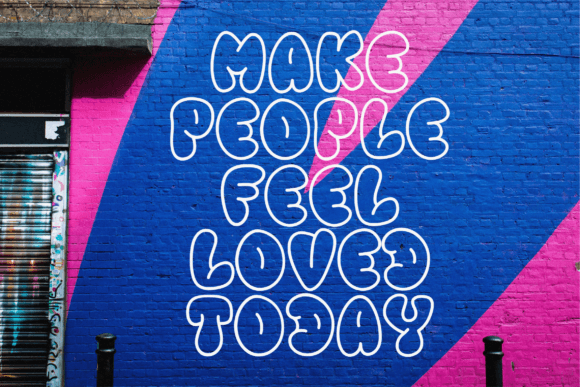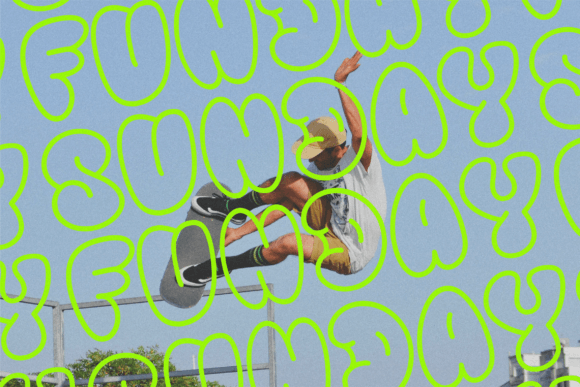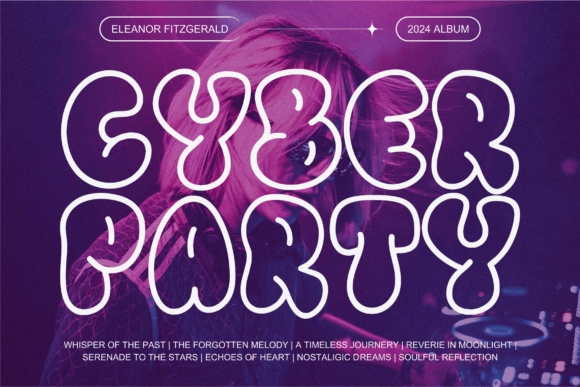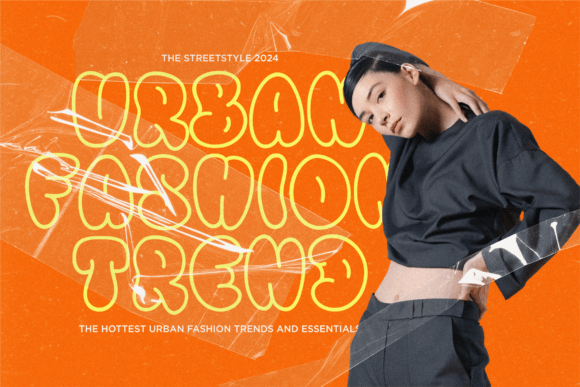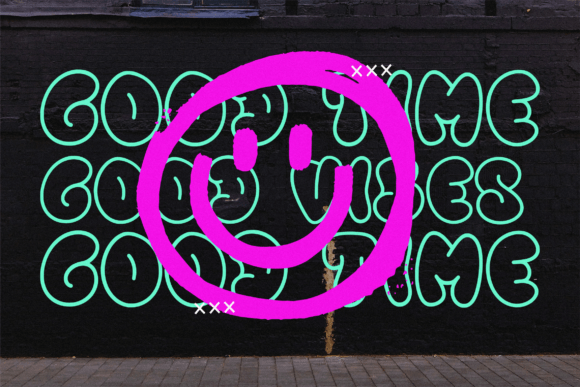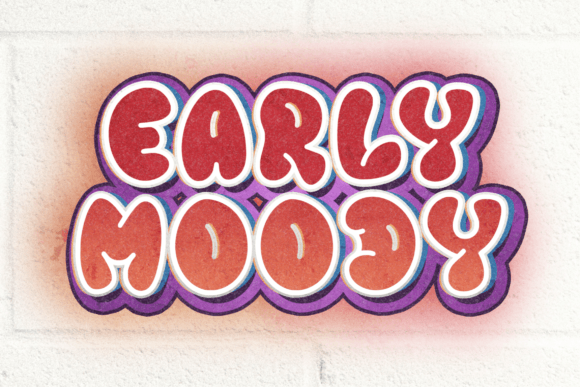
Introducing Early Moody Font: Adding a Joyful Touch to Your Designs
Are you tired of using the same old fonts in your designs? Do you want to add a playful and quirky touch to your creative projects? Look no further than the Early Moody Font! This adorable display font is sure to bring a smile to your face and make your designs stand out from the crowd.
What is Early Moody Font?
Early Moody is a cute and quirky display font that is perfect for adding a joyful touch to your designs. With its unique and playful character set, this font is sure to capture the attention of your audience. Whether you’re a designer, crafter, or DIY enthusiast, Early Moody Font is a must-have addition to your font collection.
Key Features of Early Moody Font
- Cute and Quirky Design: Early Moody Font features a playful and whimsical design that is sure to add a touch of personality to your designs.
- Display Font: This font is specifically designed as a display font, making it perfect for headlines, titles, and other attention-grabbing elements.
- Unique Character Set: Early Moody Font features a unique character set that includes a range of letters, numbers, and punctuation marks.
Design Ideas with Early Moody Font
Early Moody Font is a versatile font that can be used in a variety of design projects. Here are a few ideas to get you started:
- Social Media Graphics: Use Early Moody Font to create eye-catching social media graphics that will help your posts stand out.
- Party Invitations: Add a playful touch to your party invitations with Early Moody Font.
- Crafting Projects: Use Early Moody Font to add a personal touch to your crafting projects, such as handmade cards and gift tags.
- Branding Materials: Use Early Moody Font to create unique and memorable branding materials, such as logos and business cards.
Why Choose Early Moody Font?
There are many fonts to choose from, but Early Moody Font stands out from the rest. Here are a few reasons why:
- Unique Design: Early Moody Font features a unique and playful design that is sure to capture the attention of your audience.
- Versatile: Early Moody Font can be used in a variety of design applications, making it a great addition to your font collection.
Early Moody Font is a cute and quirky display font that is perfect for adding a joyful touch to your designs. With its unique and playful character set, this font is sure to capture the attention of your audience. Whether you’re a designer, crafter, or DIY enthusiast, Early Moody Font is a must-have addition to your font collection. So why wait? Download Early Moody Font today and start adding a playful touch to your designs!